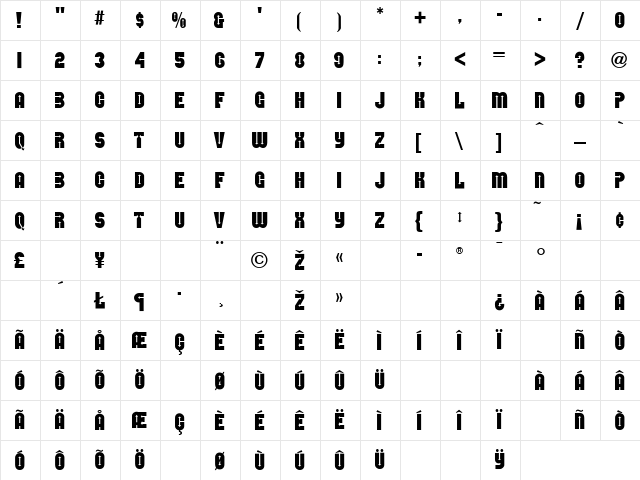
Direction Regular Free Font
Direction Regular
Foundry: Digitized by Dan X. Solo. Software by Dover Publications, Inc
Design Context for Direction
Direction is a composed and adaptable typeface that performs quietly and consistently across a wide range of design contexts.